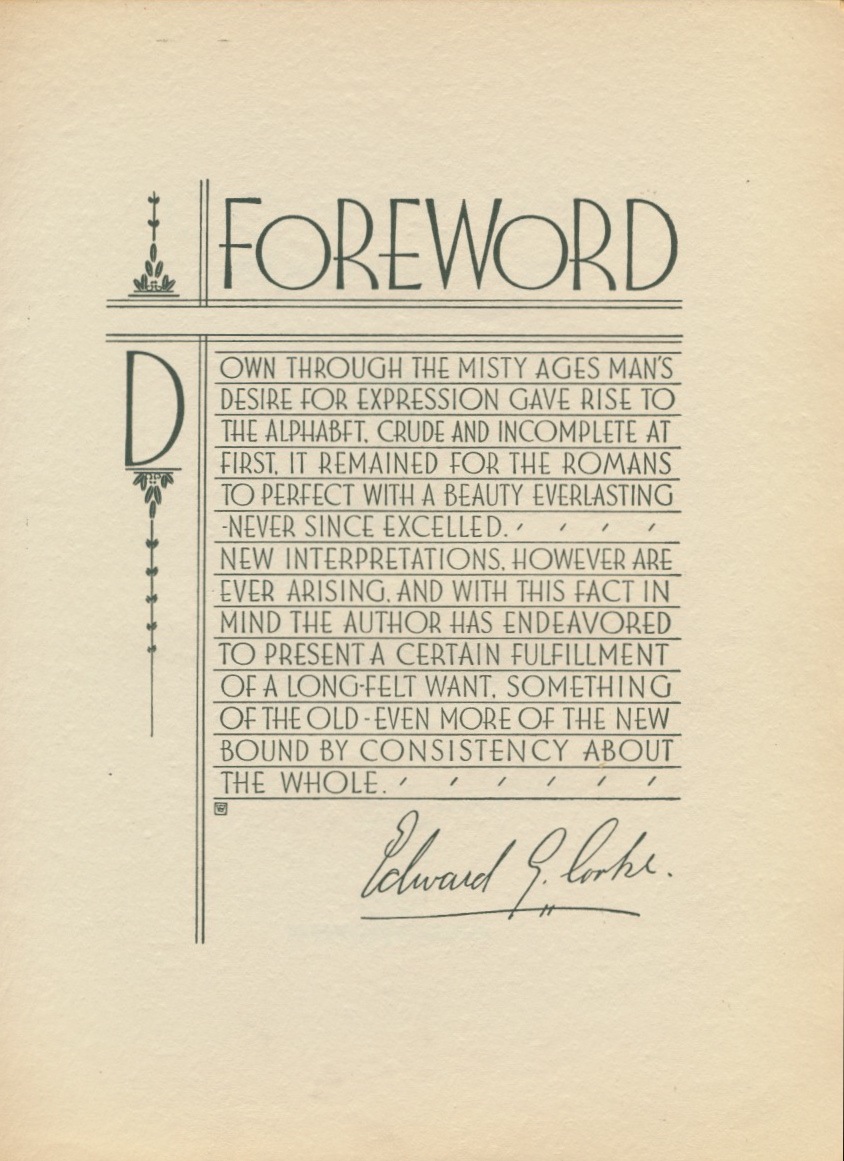
Lettering: Modern and Foreign was designed and hand-lettered by Samuel Welo. The book was published in 1930 by Frederick J. Drake and Company. Welo produced two other books, The Studio Handbook (1927) and Trade Mark and Monogram Suggestions (1937). Select pages from The Studio Handbook, courtesy of J.J. Sedelmaier, can be viewed here. The dust jacket for Trade Mark and Monogram Suggestions is here; Dover Publications compiled some of those suggestions into 800 Art Deco Motifs and Monograms (a 2007 CD-ROM and book).
Around 1979 I found a copy of Lettering at Dauber & Pine, which was located at 66 Fifth Avenue in Manhattan; the bookstore's closing was reported in the New York Times. The space was absorbed by Parsons, The New School for Design. My copy of the book (9.125 by 11.75 inches / 23.18 by 29.85 centimeters) was used to the extent of falling apart; the spine was broken and black electrical tape was used to keep the covers and signatures together. The book was from the Mount St. Agnes Library (see title page) and made its way from Mount Washington, Maryland to the basement of Dauber & Pine.